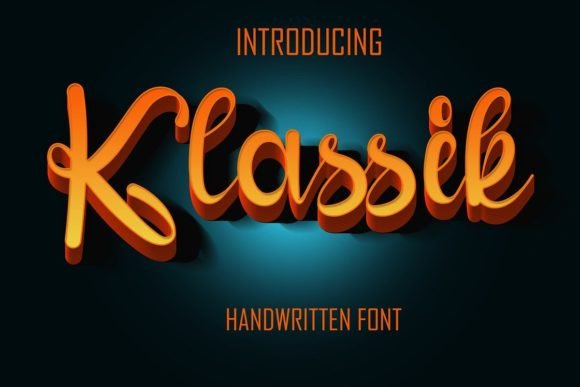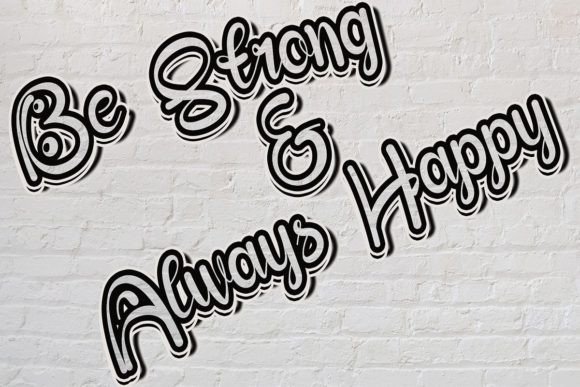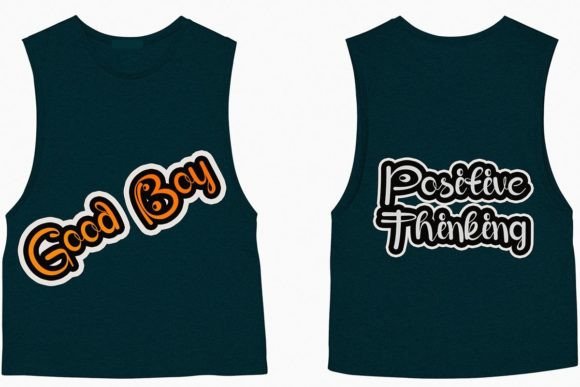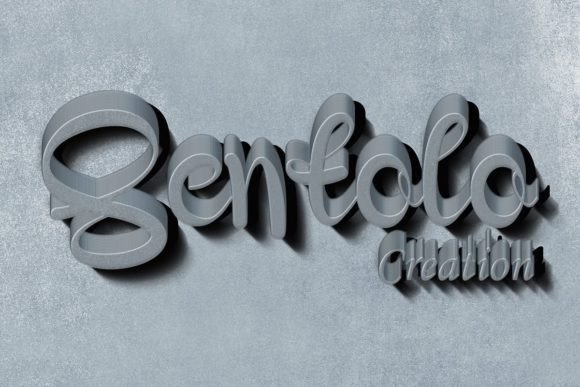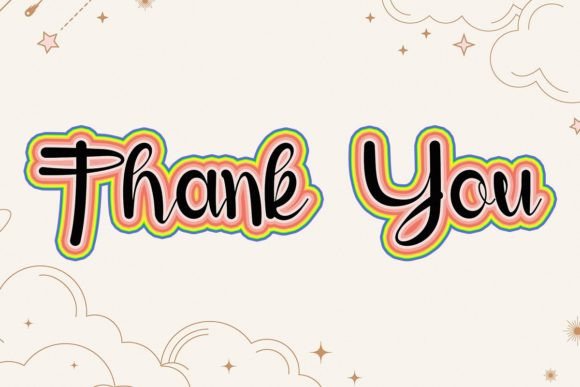
Klassik Font
About Klassik Font
Klassik is a stylish, fun, incredibly elegant, and friendly handwritten font that brings a touch of sophistication to your designs. This versatile font is a perfect addition to packaging, wedding invitations, business cards, greeting cards, social media posts, wall art, and more. Crafted with precision, Klassik is designed for those who seek a beautiful and refreshing look for their creative projects.
The stylish and elegant qualities of Klassik make it a standout choice for various applications. Whether used in packaging or wedding invitations, this font adds a level of sophistication that elevates the overall aesthetic.
In business cards and greeting cards, Klassik imparts a friendly and approachable vibe. Its handwritten charm creates a personal connection with the audience, making your cards more memorable and engaging.
For social media posts, Klassik brings a refreshing and stylish touch. The font’s versatility allows it to adapt seamlessly to different platforms, enhancing the visual appeal of your content.
Imagine Klassik gracing the walls as part of wall art, where its elegant strokes contribute to a chic and contemporary atmosphere. The font adds a touch of creativity and sophistication to your living or workspace.
This font is a versatile choice that suits a range of creative ideas. Its refreshing look makes it a valuable asset for designers looking to infuse a sense of beauty and elegance into their projects.
In conclusion, Klassik is more than just a font; it’s a design asset crafted to bring style, elegance, and friendliness to your creative ideas. Whether used in packaging, invitations, social media, or wall art, Klassik ensures that your designs exude a beautiful and refreshing look that captivates your audience.